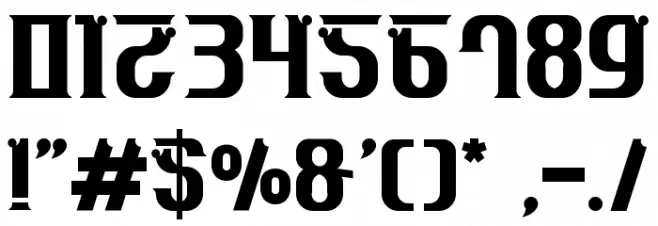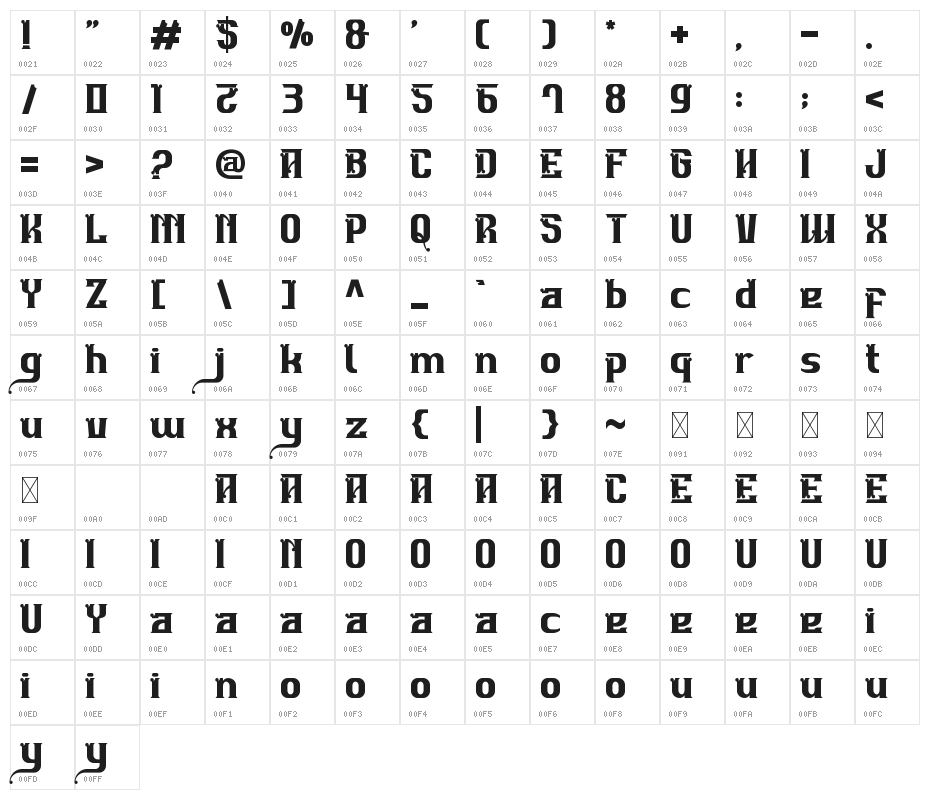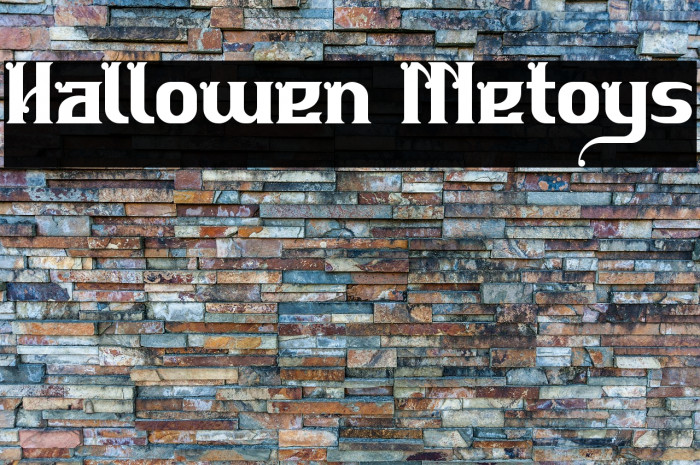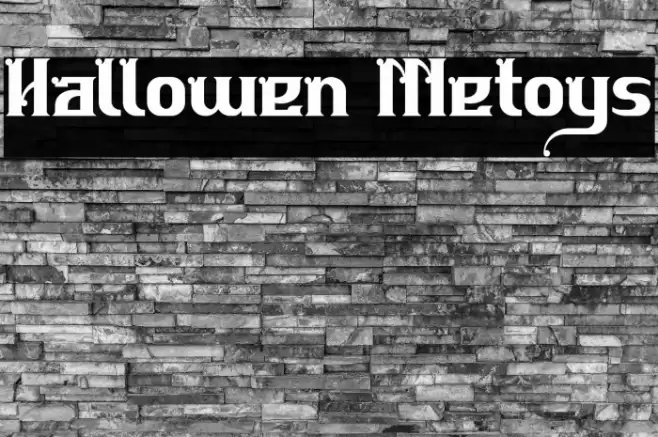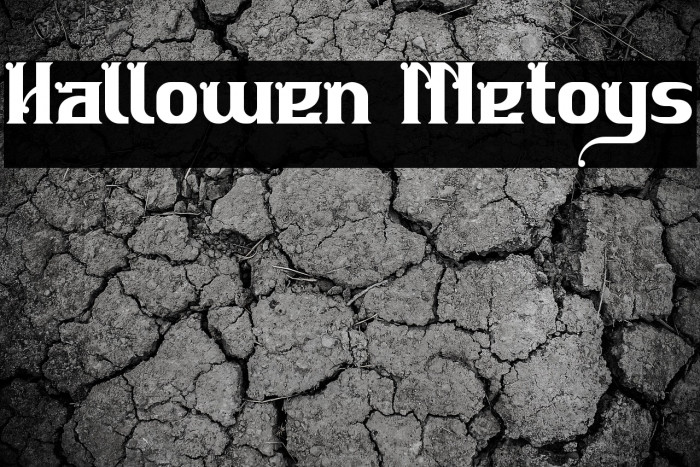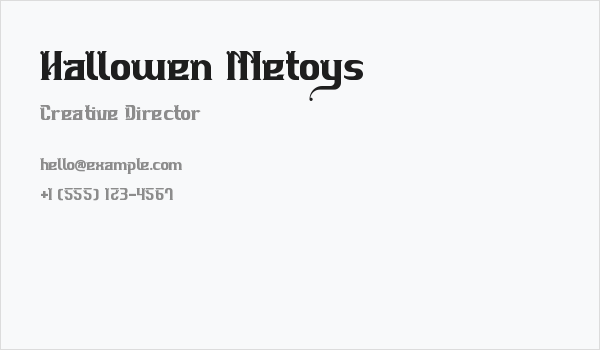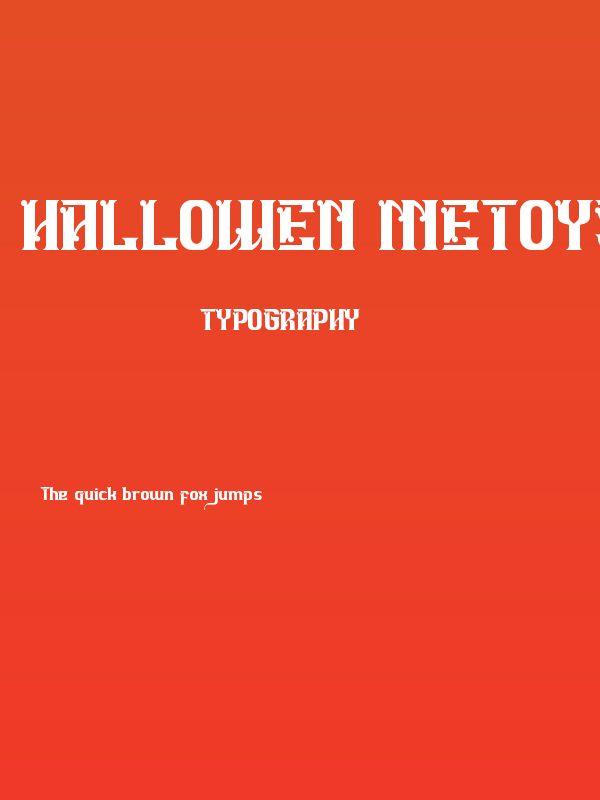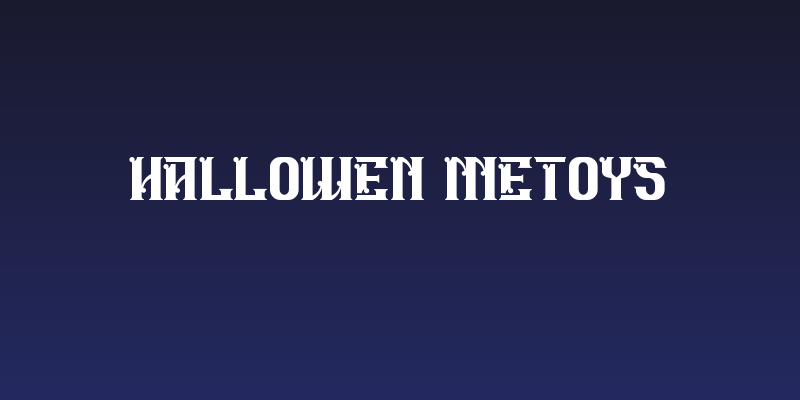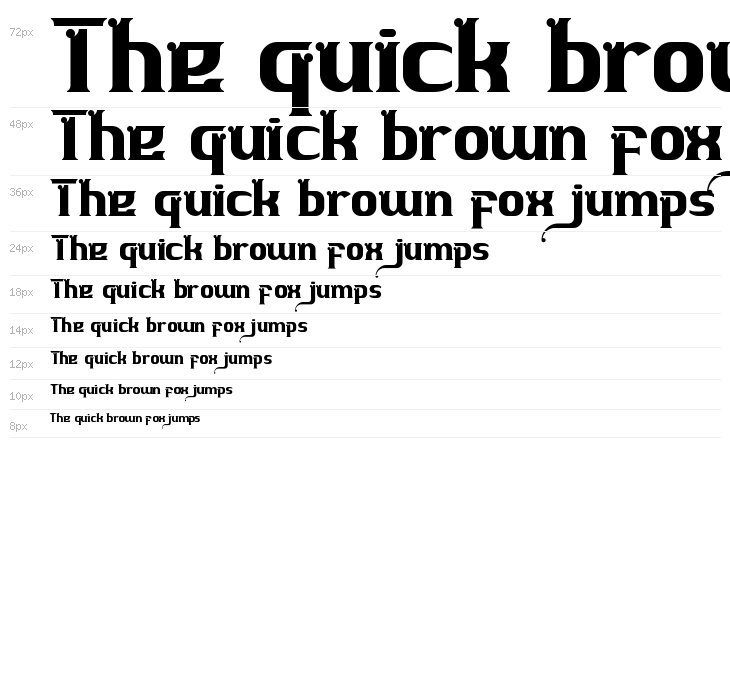
Hallowen Metoys Font
Hallowen Metoys Description
This font features a bold and decorative style with a distinct gothic influence, characterized by sharp edges and intricate details. The uppercase letters are particularly striking, with unique embellishments that give them a dramatic flair. The lowercase letters maintain a consistent style, offering a cohesive look across the alphabet. Numbers and special characters are designed with the same attention to detail, making them stand out. The overall appearance is both bold and artistic, making it suitable for eye-catching designs.
| Proposed Projects | Ideal for Halloween-themed designs, posters, logos, and any project requiring a dramatic and artistic touch. |